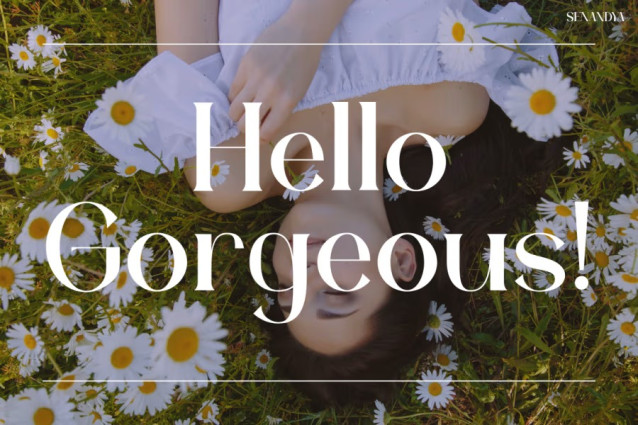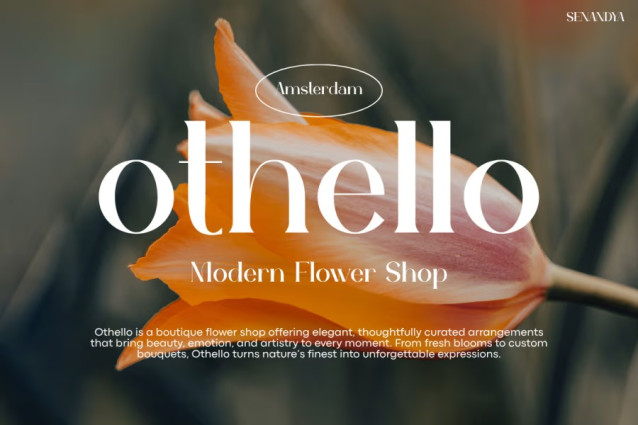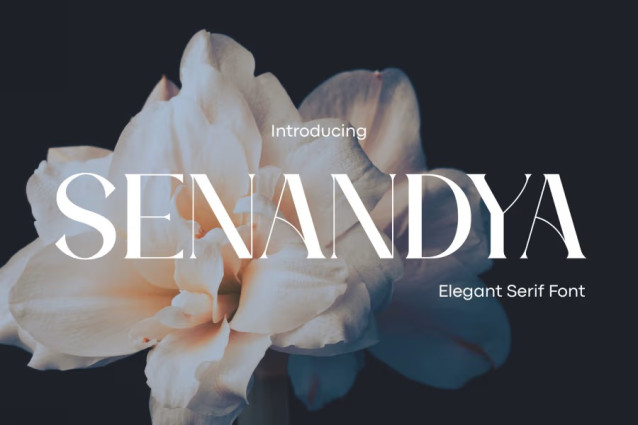
Senandya Font
Senandya Font is a refined serif typeface with elegant curves and modern contrasts. Moreover, its smooth shapes create a stylish and expressive look. The preview images show how well it works in floral designs, magazine layouts, and clean product displays. Because of this, the font instantly adds charm and polished character to any visual project.
Instagram Font Senandya blends classic beauty with strong usability. Furthermore, its balanced forms and soft ligatures make each word look warm and intentional. The font stays clean and modern, even with its decorative touches, so it fits many design themes.
In addition, the previews reveal its flexibility across branding, fashion ads, product packaging, and lifestyle content. Consequently, the font brings a more expressive and professional feel to every layout. Its graceful contrast gives your text personality without distracting from the overall design.
Because of its structure and clarity, Senandya works well for creators who need a typeface that feels artistic yet easy to read.